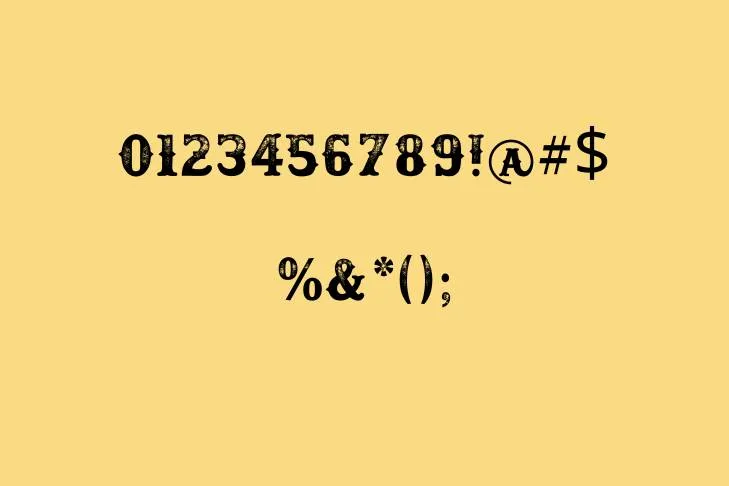
In this posts, we will discuss Western font and discuss some of its uses and features. This typeface equips many beautiful characters including stylistic alternates, ligatures, and swashes.
It belongs to the fancy typeface family and is defined as a type of font that is intentionally created to reflect either the Old West or the cinematic culture associated with Hollywood cowboy films. Its design is flawlessly built so that component patterns can be seen that completely complement some of the traits of this specific category display.
It is undoubtedly the most beautiful font ever created, as well as one of the finest striking fonts. It is a stunning typeface that is the perfect choice to use for applications like banners, some animated solicitations, and sometimes headlines or tags.
Other intriguing features of this font include the usage of both upper- and lowercase letters, a few punctuation marks, and multinational characters that can be useful in certain of your projects. Unquestionably a beautiful font that may add a taste of the authentic old west to your creations.
It has the potential to be a more nostalgic or historic typeface, which is crucial because it sets itself apart from other typefaces and it goes well for projects where you want to add a vintage touch like historical movies, posters, or banners displaying a Western touch, etc.
What kind of font is Western Font?
This stunning typeface belongs to the fancy typeface family that isĀ design to reflect either the Old West or the cinematic culture associated with Hollywood cowboy films.
Is there a font that resembles Western Font?
The nougat font is the most suitable replacement for this lovely typeface. The unique glyphs of this font are perfect to construct incredible new form methods.